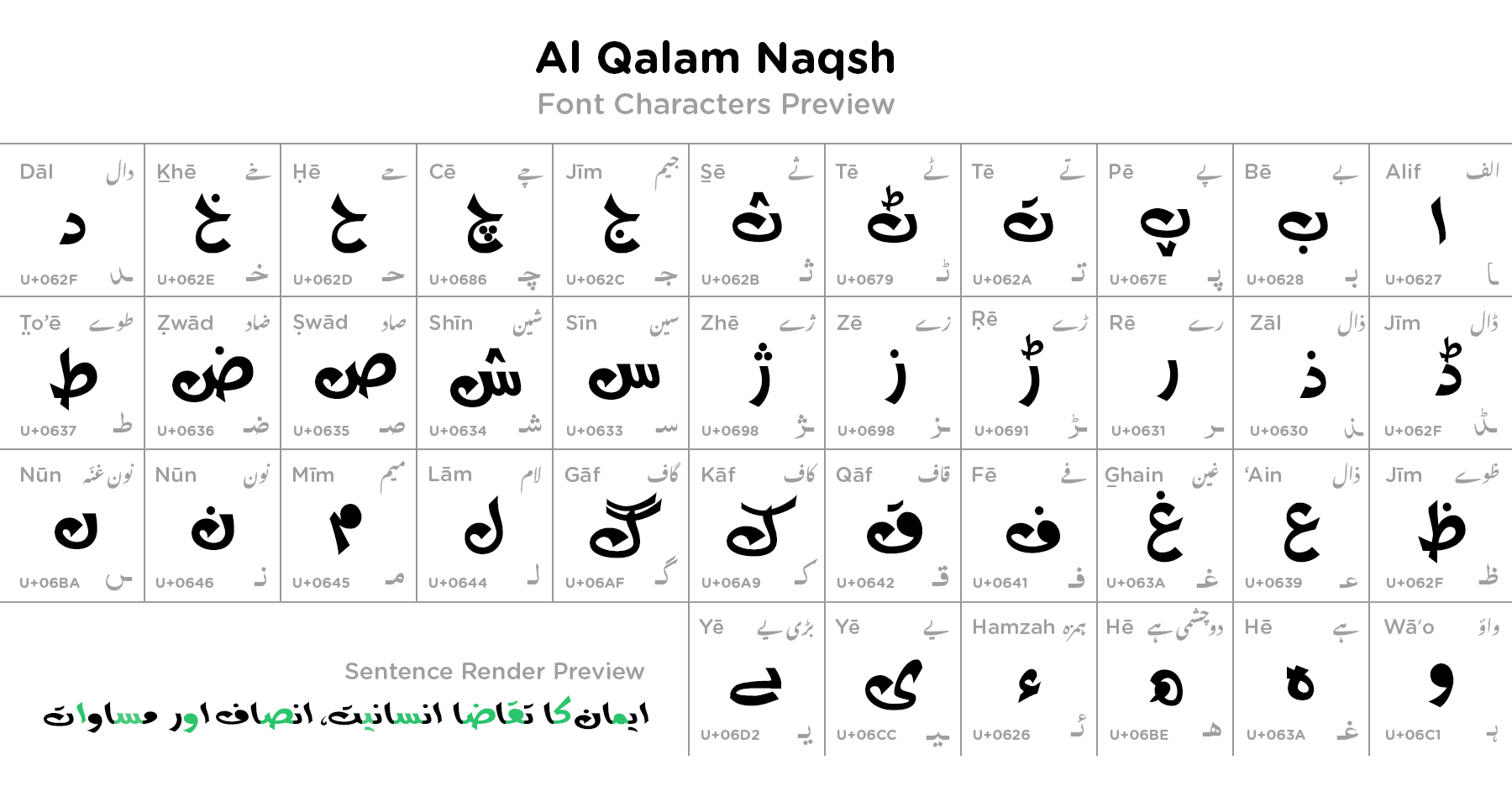
Al Qalam Naqsh, designed by font designer Syed Shakir ul Qadree, presents a cursive style font with handwritten irregularity and swash ornaments. It was released on January 30, 2016. Inspired by the Naskh script, it seamlessly integrates diacritics and vowels, offering 215 characters and 329 glyphs for extensive language compatibility. This font’s dynamic thickness, thick-thin stroke contrast, and impactful strokes provide visual interest, yet may pose legibility challenges at smaller sizes.
Al Qalam Naqsh suggests luxury and elegance with its flowing, decorative style. Therefore, it is best suited for short texts due to its intricate details and challenging readability. Its distinctive aesthetic is due to pointy edges, elongated tails, filled letters, and irregular, uneven spacing. While the font’s fluid cursive style connects letters for smoothness, its ornamental features and dynamic strokes add flair and depth, enhancing its uniqueness. Ideal for creative projects, T-shirt designs, logos, and storybook covers, Al Qalam Naqsh is a bold choice for those seeking a visually striking and culturally resonant font inspired by Islamic calligraphy. Moreover, the font’s compliance with the latest Unicode standards increases its practicality even more.